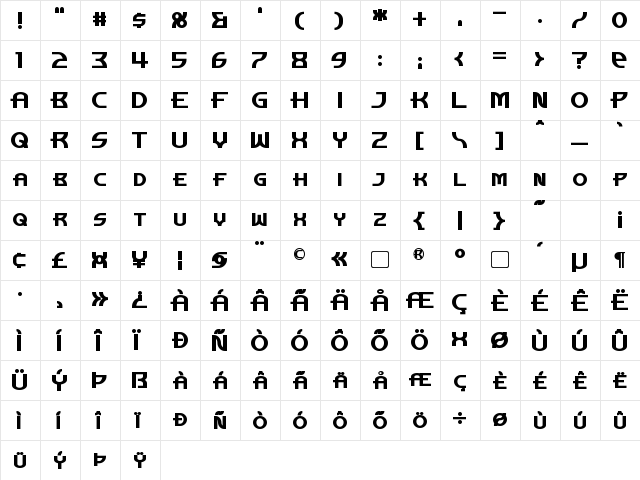
Manhattan Tower Bold
Design Context for Manhattan Tower Typeface
Manhattan Tower is a composed and adaptable typeface that performs quietly and consistently across a wide range of design contexts. Its bold stroke weight gives it real presence on the page.